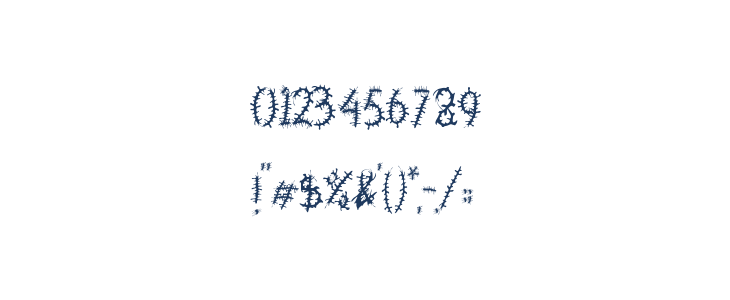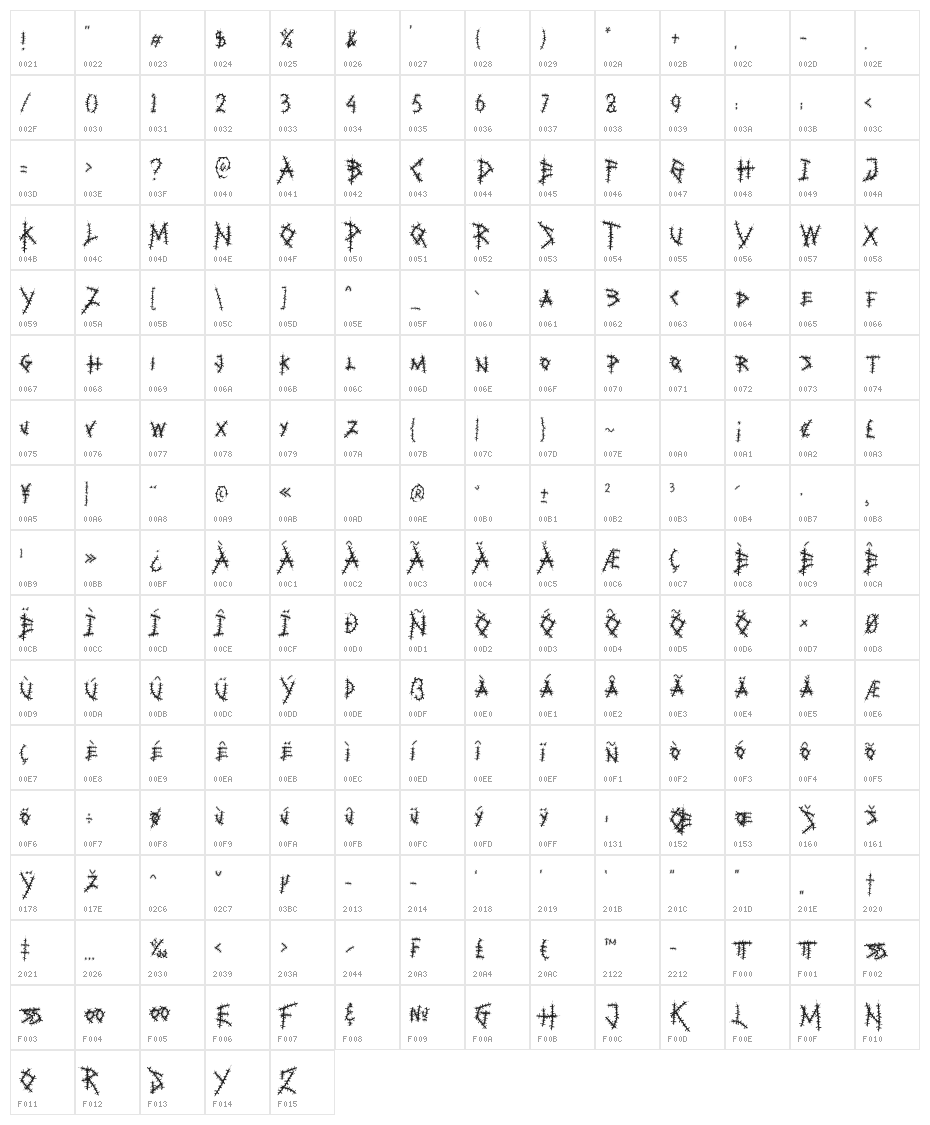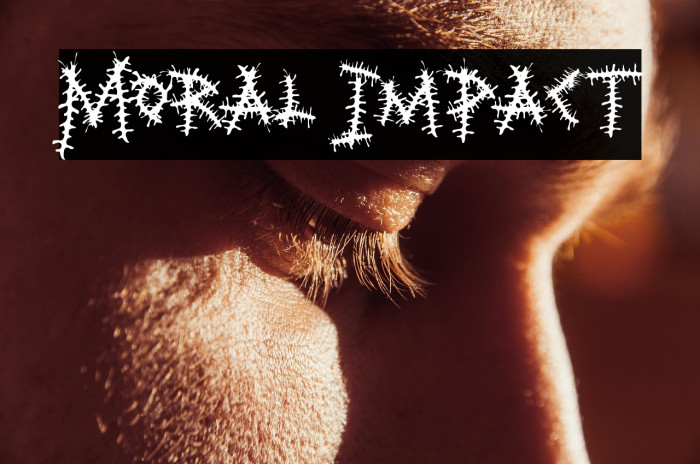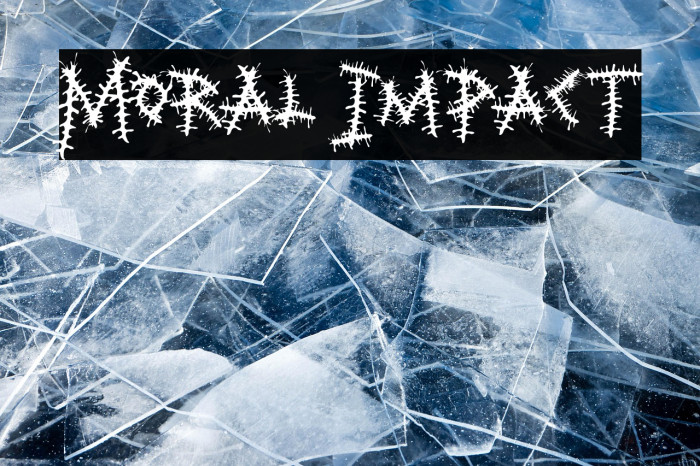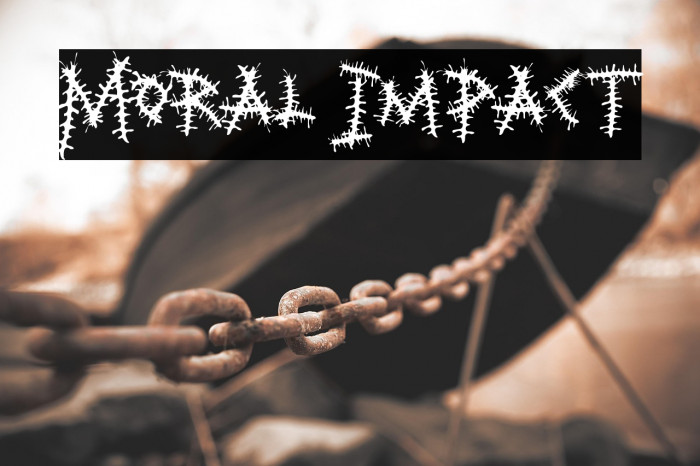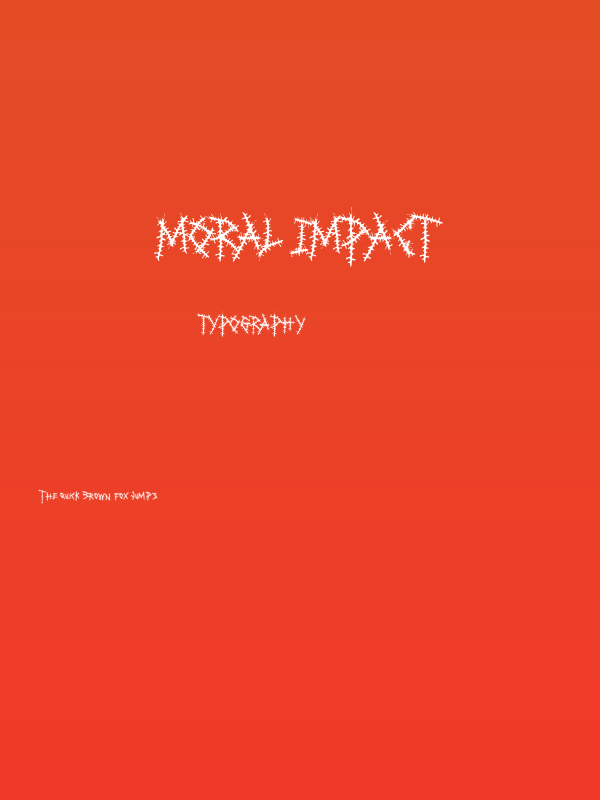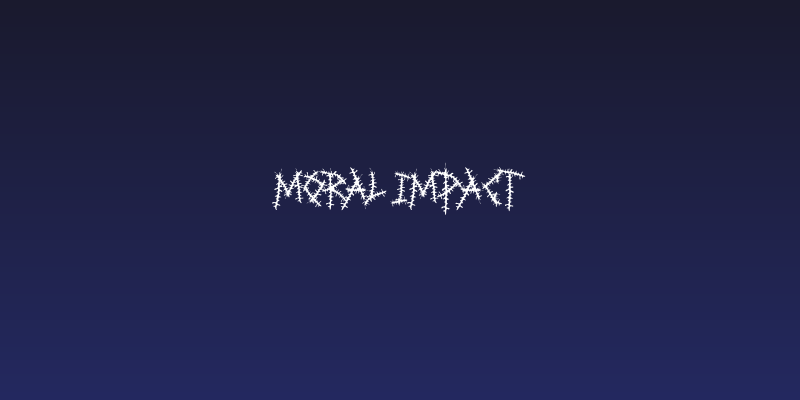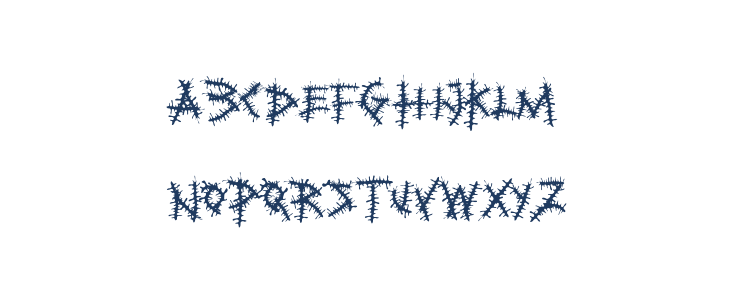
Moral Impact Font
Moral Impact Description
This font features a highly decorative and edgy design, with each character resembling a series of thorns or barbed wire. The intricate detailing gives it a rugged and rebellious appearance, making it stand out with its unique texture. The uppercase and lowercase letters maintain a consistent style, with sharp, pointed edges and a sense of movement. Numbers and special characters follow the same thorny theme, ensuring a cohesive look across all elements. The font's distinctiveness makes it ideal for projects that require a bold and unconventional aesthetic.
| Use Case | Logos, Posters, Album covers |
| Proposed Projects | Ideal for album covers, posters, or branding that requires a bold, edgy look. |